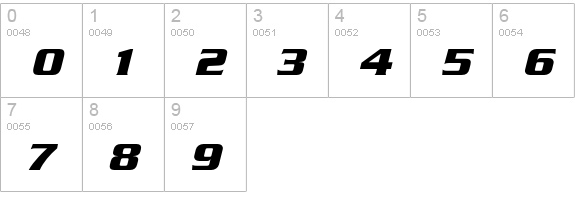
Serpentine Bold Oblique is a strong, high-contrast, italic variant in the Serpentine typeface family \xE2\x80\x94 well suited to headlines, attention-grabbing titles, and strong calls-to-action.
Serpentine Bold Oblique font is a stunning and eye-catching typeface that exudes confidence and power. With its bold and slanted design, this font adds a touch of dynamism and modernity to any project. The distinctive curves and sharp angles of Serpentine Bold Oblique create a sense of movement and energy, making it perfect for headlines, logos, and other attention-grabbing designs. Its unique combination of boldness and italicization gives it a strong and assertive presence, making it ideal for projects that demand a bold statement. What makes Serpentine Bold Oblique even more enticing is that it is freely available to download at FontsMarket.com. This means that you can easily add this impressive font to your collection without any cost or hassle. Whether you are a designer, a marketer, or someone looking to add a touch of flair to your personal projects, Serpentine Bold Oblique is the perfect choice. With its versatility and striking appearance, Serpentine Bold Oblique allows you to unleash your creativity and make a lasting impact. Its boldness and oblique style will instantly captivate your audience and make your designs stand out from the crowd. So why wait? Download Serpentine Bold Oblique today and let your creativity soar.